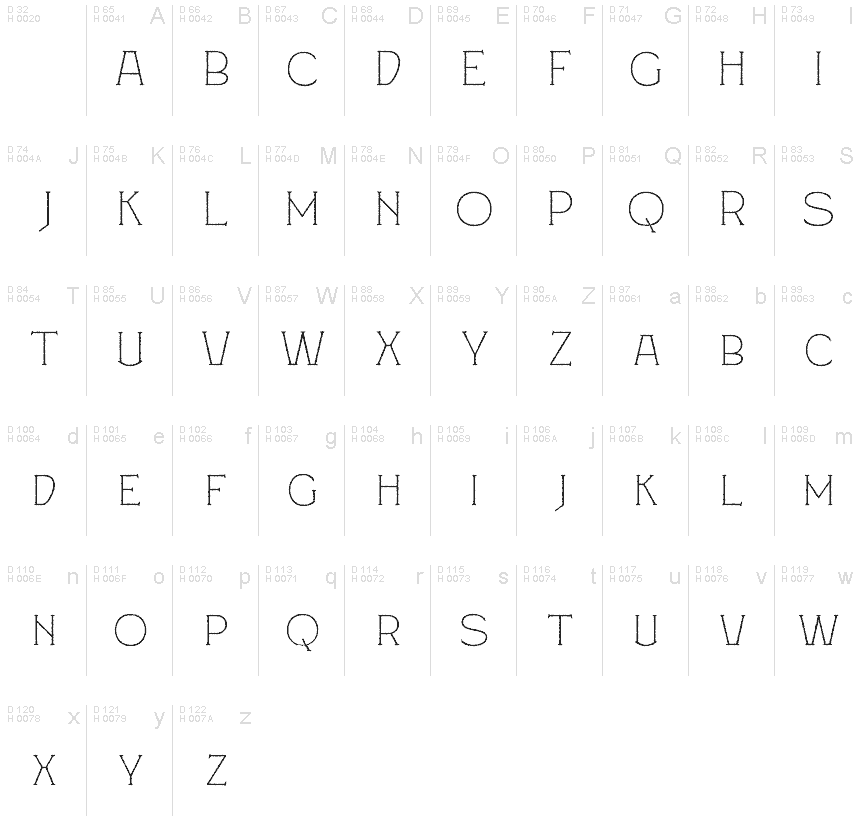
Aurlen Rough Regular Demo
Aurlen Rough font by Craft Supply Co. is a light textured serif font with rough edges and an elegant overall appearance. The letterforms are inspired by structured vintage designs found in magazines and newspapers of the ’50s and ’60s. This free serif font has a sophisticated touch that appeals to audiences interested in its unique retro style.
Use Aurlen Rough on magazine covers, book covers, cosmetics products, CD album covers, business cards, web design projects, posters and flyers, invitations for any occasion, weddings cards, branding projects or package designs. Perhaps pair it with another serif or sans as the designer sees fit.